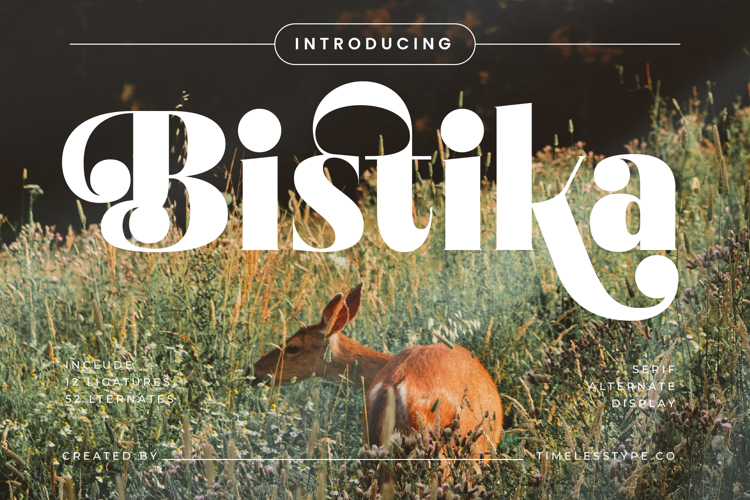
Bistika - Serif Alternate Display
The Bistika Typeface is a serif alternate display font with a bold, elegant, and decorative style. Featuring 12 ligatures and 52 stylistic alternates, this typeface offers wide flexibility to create typography that feels unique, dynamic, and refined. Its thick letterforms with curved decorative terminals bring a warm retro-modern vibe, making it ideal for creative projects that seek to showcase strong yet artistic character.
This font is highly effective in editorial design, especially for lifestyle magazines, book covers, and artistic headlines. The ligatures and alternates add variety, ensuring each layout appears full of character and far from monotonous.
In branding and packaging, Bistika is a perfect choice for artisan products, cosmetics, exclusive beverages, and fashion brands. Its bold yet elegant aesthetic conveys a premium impression, making visual identities more memorable and attractive.
For entertainment and promotional design, this typeface shines on movie posters, event branding, music album covers, and art festival campaigns. Its alternate serif design adds a dramatic touch and enhances visual storytelling.
In the realm of digital design, Bistika performs seamlessly across social media content, website branding, digital advertising, and motion graphics. Despite its decorative details, it maintains strong readability, while multilingual support makes it highly relevant for global projects.
In short, Bistika Typeface is a serif alternate display font designed to deliver visual strength, retro-modern elegance, and artistic flexibility. Perfect for editorial, branding, packaging, entertainment, advertising, and digital campaigns, this font transforms typography into a stylish, character-rich, and powerful design element.